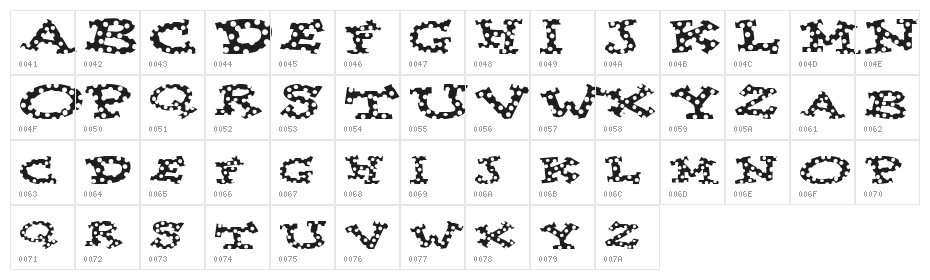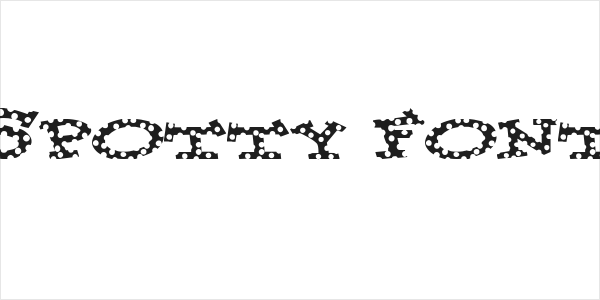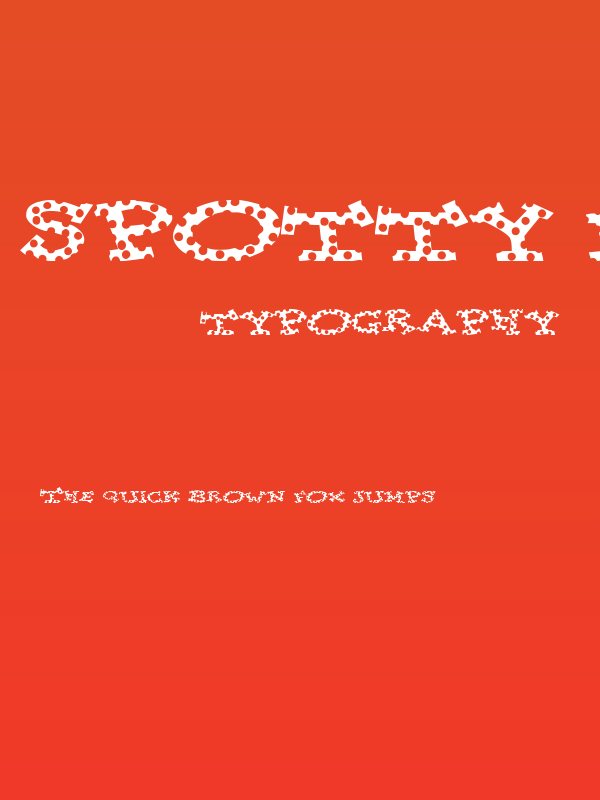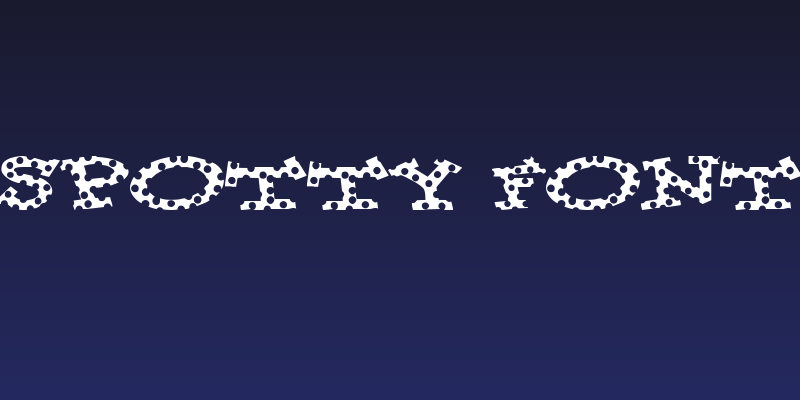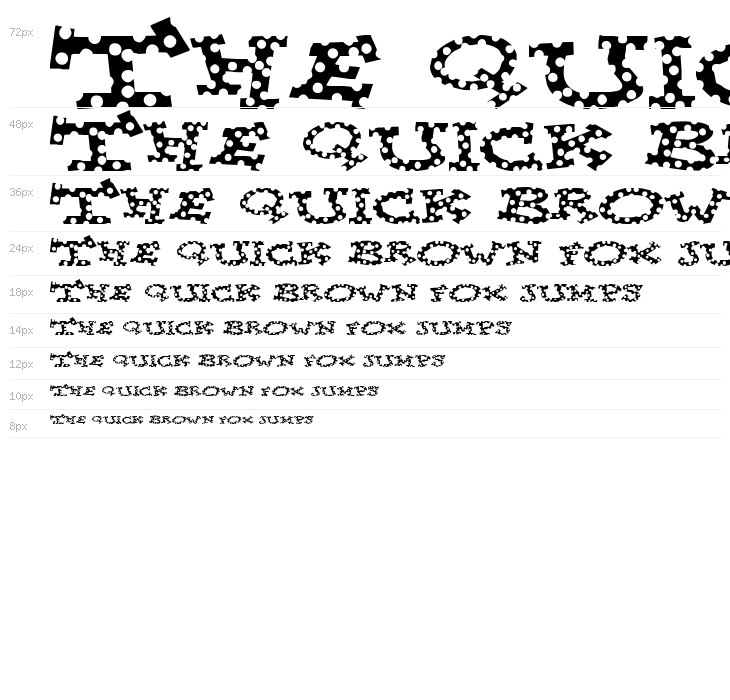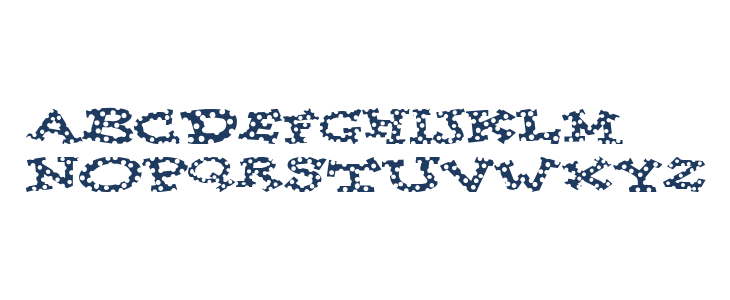
Spotty Font Font
Spotty Font Description
This font features a playful and unique design with a spotty, textured appearance. Each character is filled with irregular, circular patterns that create a sense of movement and whimsy. The uppercase letters are bold and prominent, while the lowercase letters maintain the same playful style. The numbers and special characters follow the same design, ensuring consistency across all glyphs. This font is ideal for projects that require a fun and eye-catching aesthetic, such as children's books, party invitations, or playful branding.
| Proposed Projects | Ideal for children's books, party invitations, playful branding, and creative posters. |